Graffiti Font Bundle Vol 2
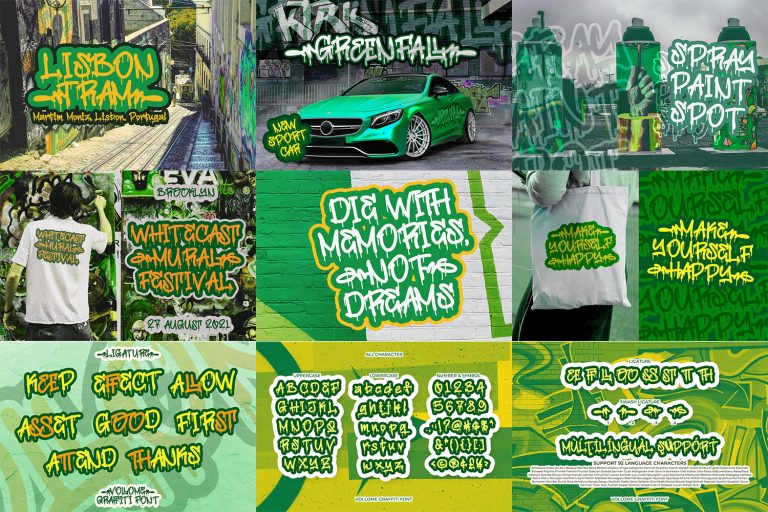
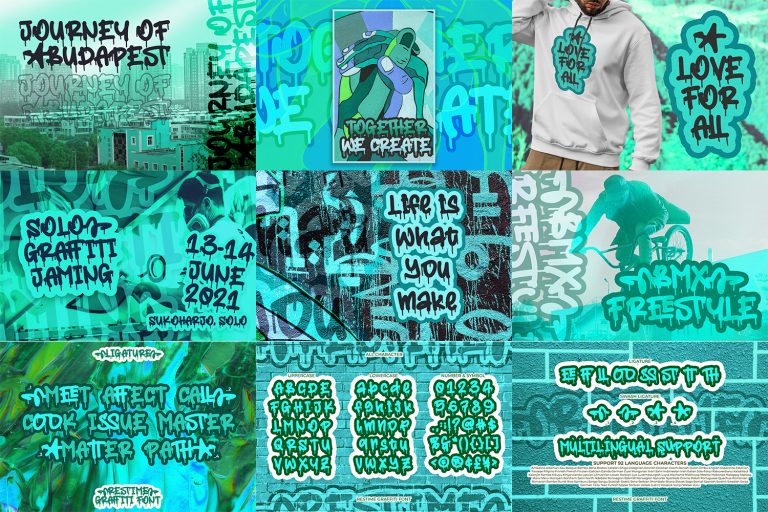
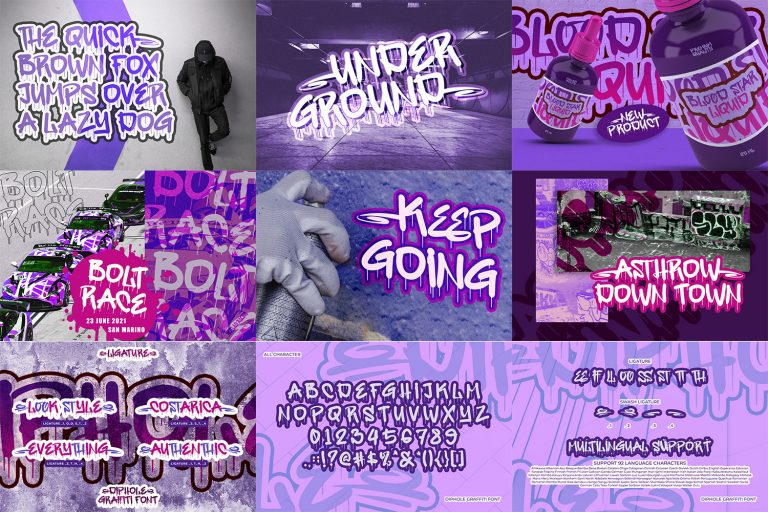
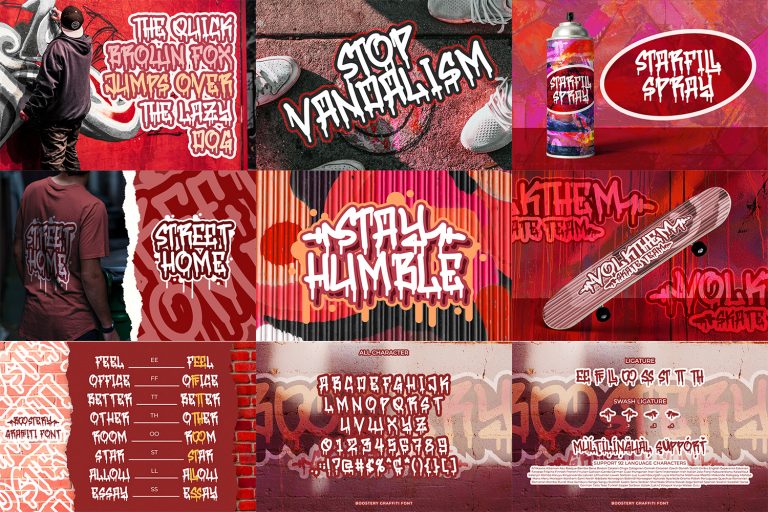
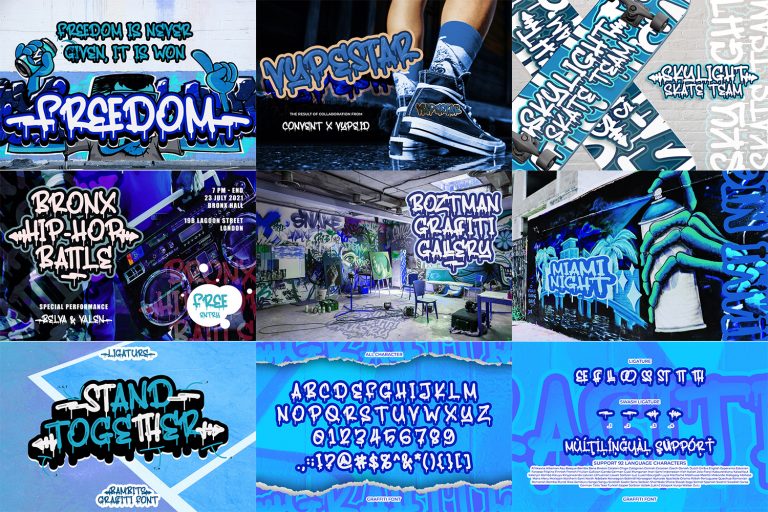
Hello, everyone! Unleash your inner urban artist with the Graffiti Font Bundle Vol 2 from Din Studio
A vibrant collection of 10 fonts inspired by the raw energy and creative rebellion of street art. Each font captures the essence of street art, from bold tag-style lettering to expressive hand-painted scripts.
Create gorgeous printed quotes or branding materials! You can even use it to create amazing headings, posters, logos, and social media graphics.
Graffiti Font Bundle Vol 2 also includes Multilingual Support. See the previews above to get some inspiration on how you can use them.